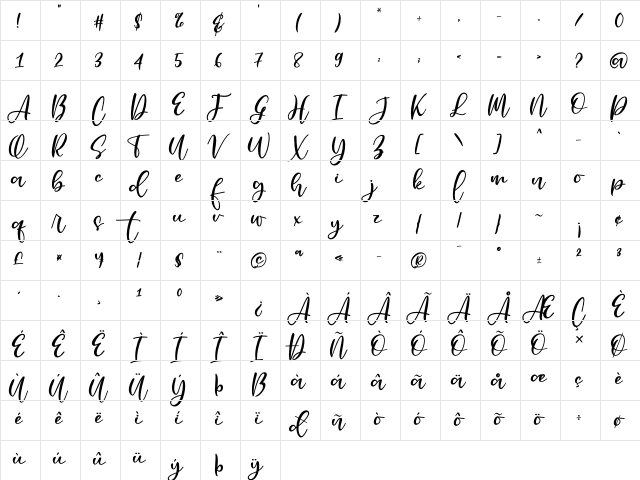
Jerlista Siny Regular
| Designer | Awan Senja Team |
Design Context for Jerlista Siny Typeface
Jerlista Siny is a composed and adaptable typeface that performs quietly and consistently across a wide range of design contexts.